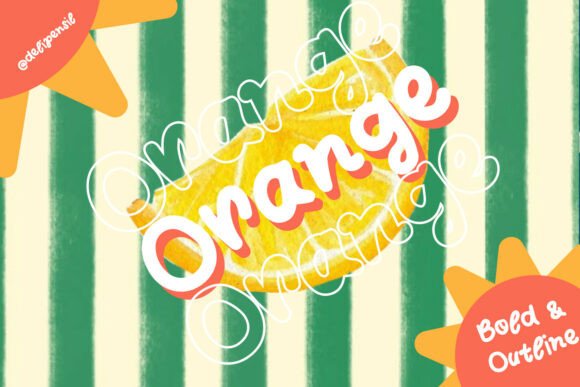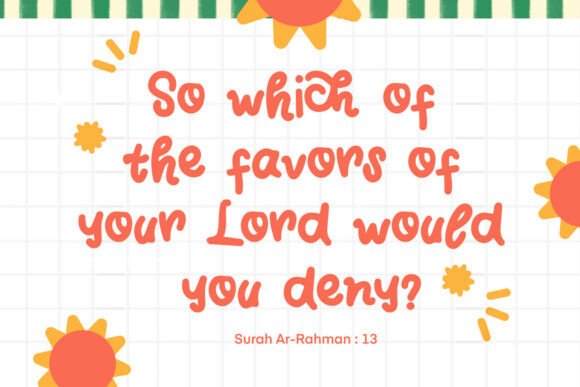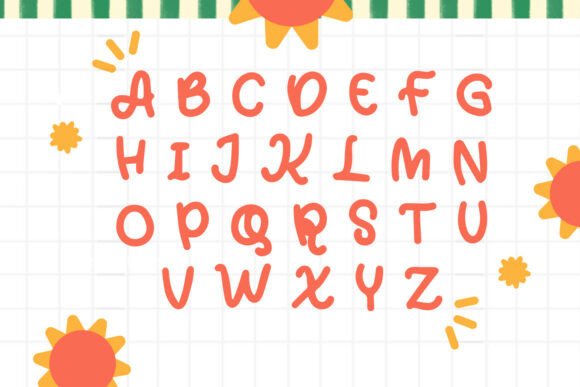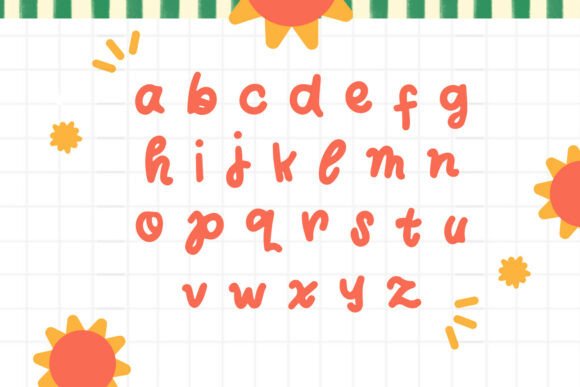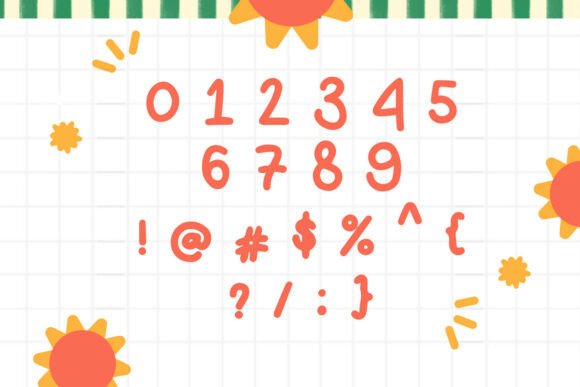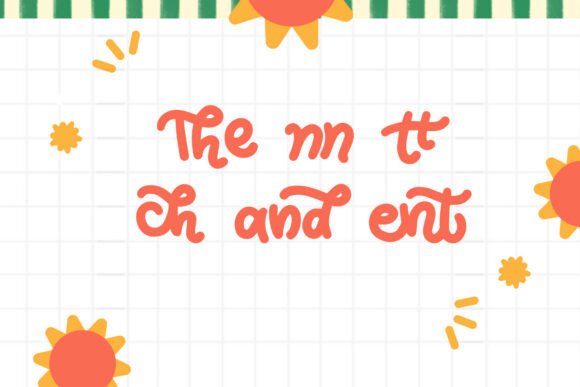
Bringing Joy to Your Designs with Cikids Font
Have you ever been in the middle of a design project, and suddenly, you’re stuck on finding the perfect font? I recall a recent experience where a client asked for a custom birthday invitation design. The theme was playful and fun, and I needed a font that would capture that essence. That’s when I stumbled upon Cikids, a cute handwriting font that instantly brought a cheerful and warm touch to my design.
The Cikids Font: A Perfect Blend of Playfulness and Friendliness
Cikids is a handwriting font inspired by kids’ doodles, making it perfect for a variety of creative projects such as birthday invitations, greeting cards, children’s posters, product labels, and educational materials. Its soft and playful strokes make every word look friendly, fun, and full of character!
What I Love About Cikids Font
- ✨ Unique and Playful Style: Cikids has a one-of-a-kind, hand-drawn feel that adds a personal touch to any design.
- ✅ Highly Versatile: This font is suitable for a wide range of projects, from children’s book covers to social media posts.
- 🎉 Easy to Read: Despite its playful nature, Cikids remains clear and easy to read, making it perfect for both digital and print designs.
- 👍 Great for Kids and Adults Alike: The font’s friendly and approachable style appeals to both children and adults, making it ideal for designs targeting a broad audience.
While Cikids is an excellent font, there are a few minor considerations to keep in mind:
- 🤔 Limited Formality: Due to its playful nature, Cikids may not be the best choice for formal or professional designs.
- ⚠️ Legibility at Small Sizes: Like many script fonts, Cikids may become less legible at very small sizes. It’s best used at larger sizes for optimal impact.
The Story Behind Cikids Font
Cikids was created with the intention of capturing the innocence and playfulness of children’s doodles. The designer aimed to create a font that would bring joy and warmth to various creative projects. Inspired by the imperfect, yet charming nature of kids’ handwriting, Cikids was born.
| Font Name | Cikids Font |
| Author | delipensil |
| What type of projects is Cikids best suited for? | Cikids is perfect for birthday invitations, greeting cards, children’s posters, product labels, educational materials, and more. |
| Is Cikids easy to read? | Yes, despite its playful nature, Cikids remains clear and easy to read, making it suitable for both digital and print designs. |
| Does Cikids support OpenType features? | Yes, Cikids supports OpenType features, allowing you to access additional glyphs and stylistic alternates to enhance your designs. |